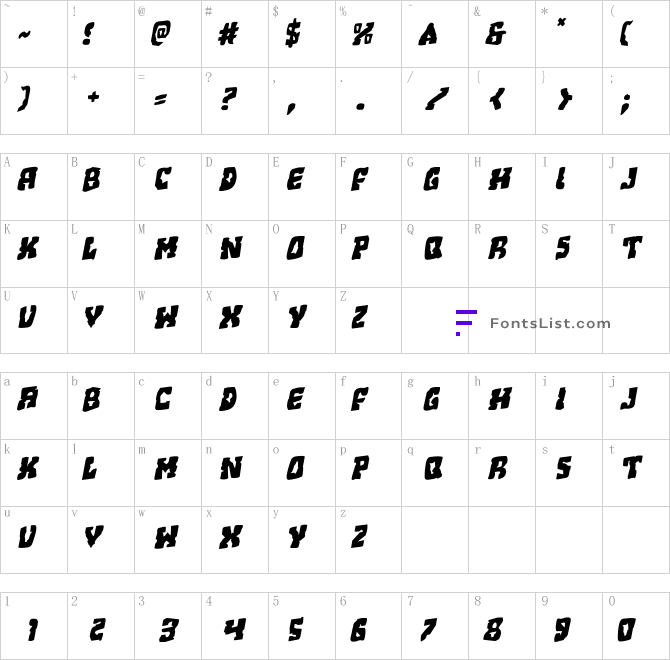
- Font Name:Beastian Rotalic
Beastian-Rotalic.ttf is a very beautiful artistic font, Beastian-Rotalic.ttf is widely used in the design and printing of various books and pictures,Beastian-Rotalic.ttf has a strong visual impact,Beastian-Rotalic.ttf is a commonly used font in newspapers, magazines and books, and is used in posters, e-commerce Poster design, store design, logo design, font design and other fields.Beastian-Rotalic.